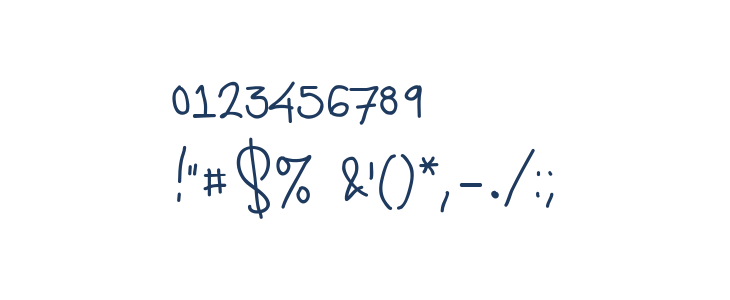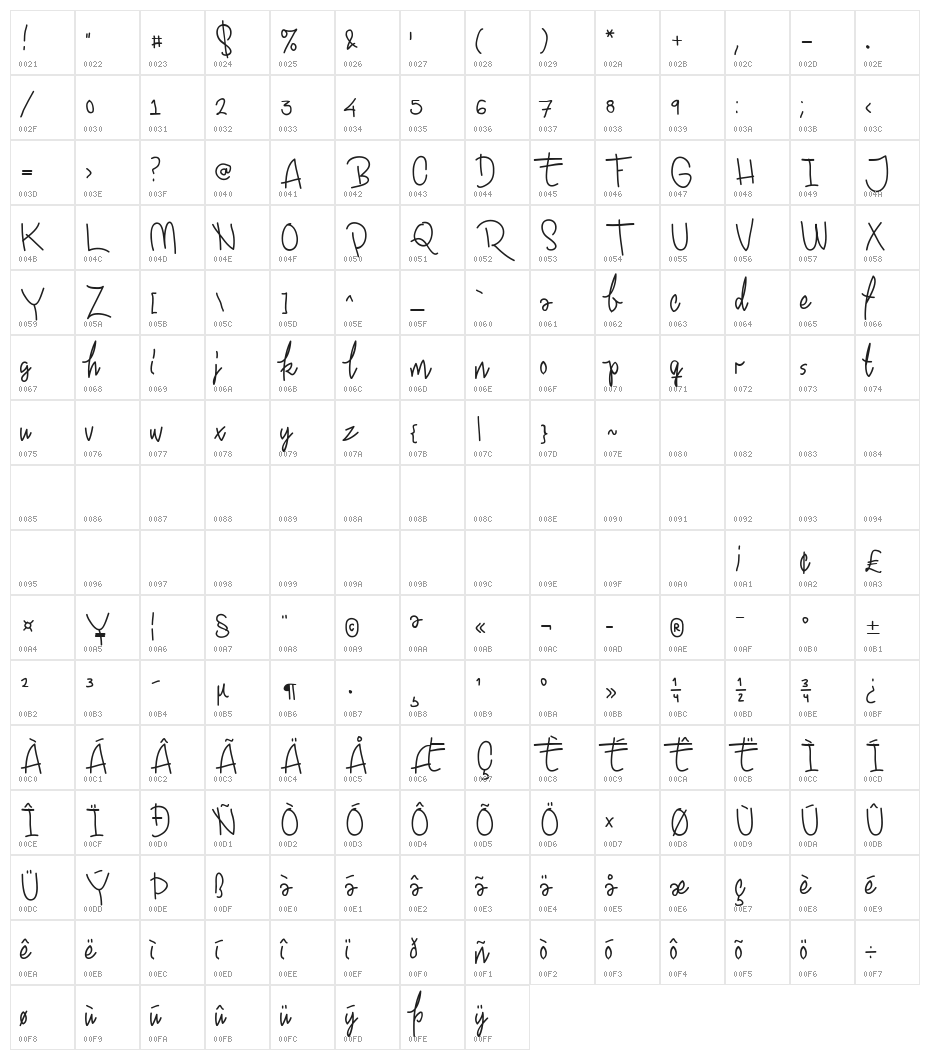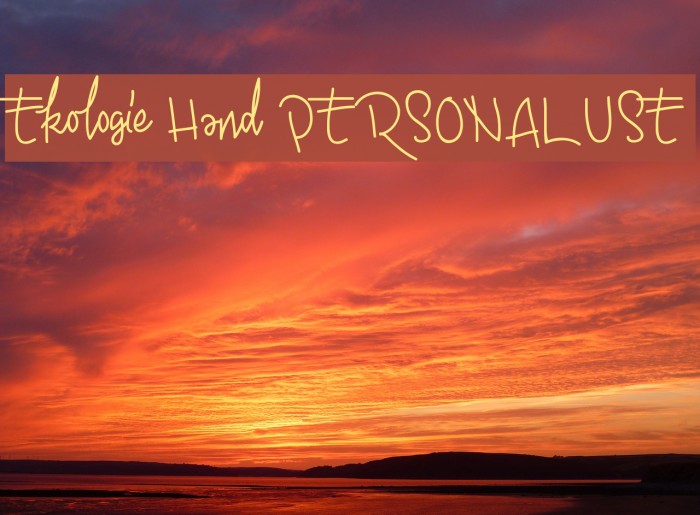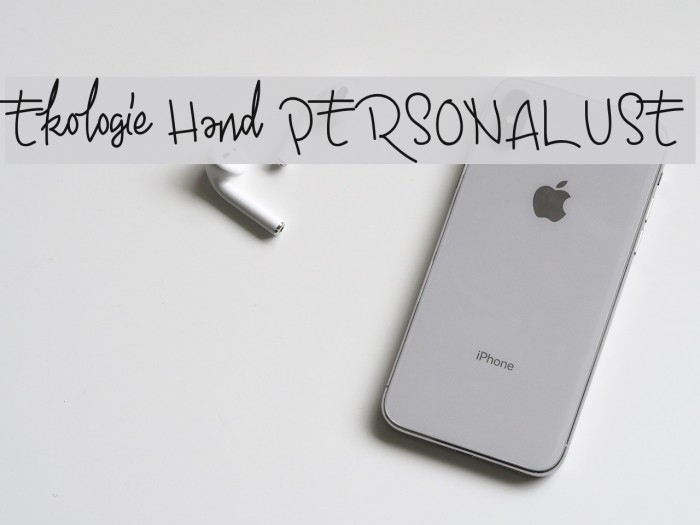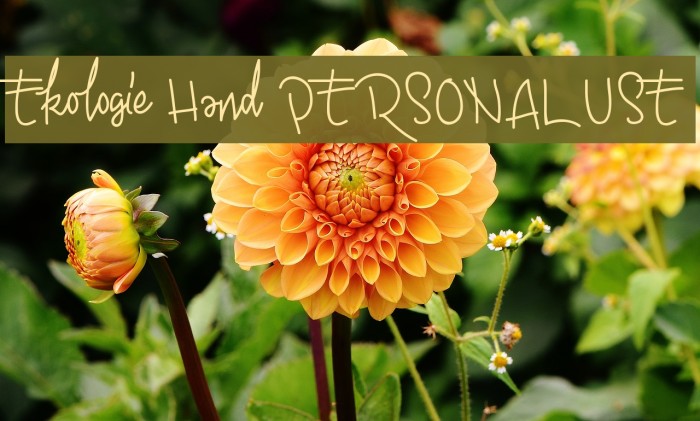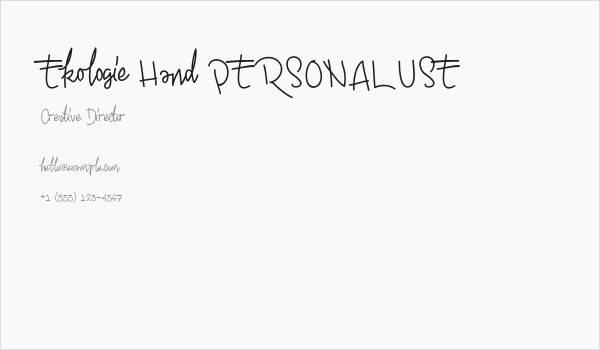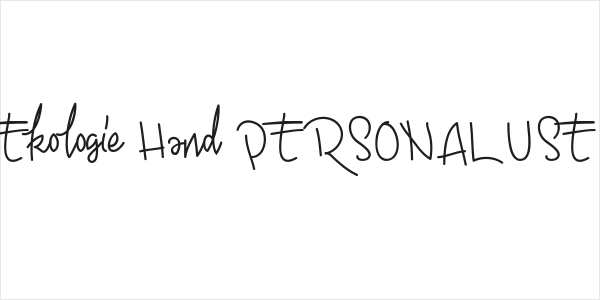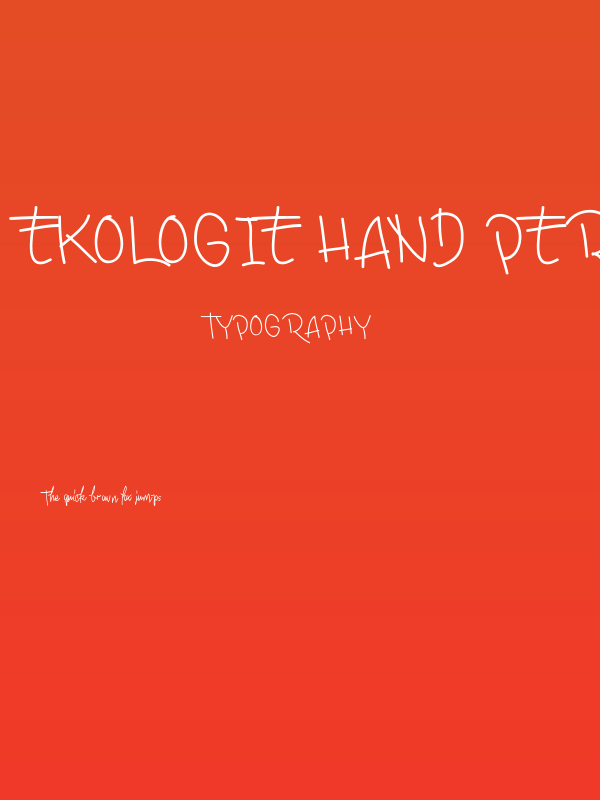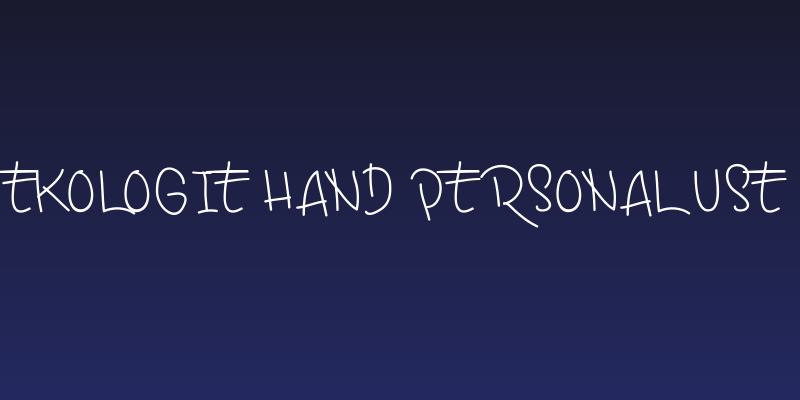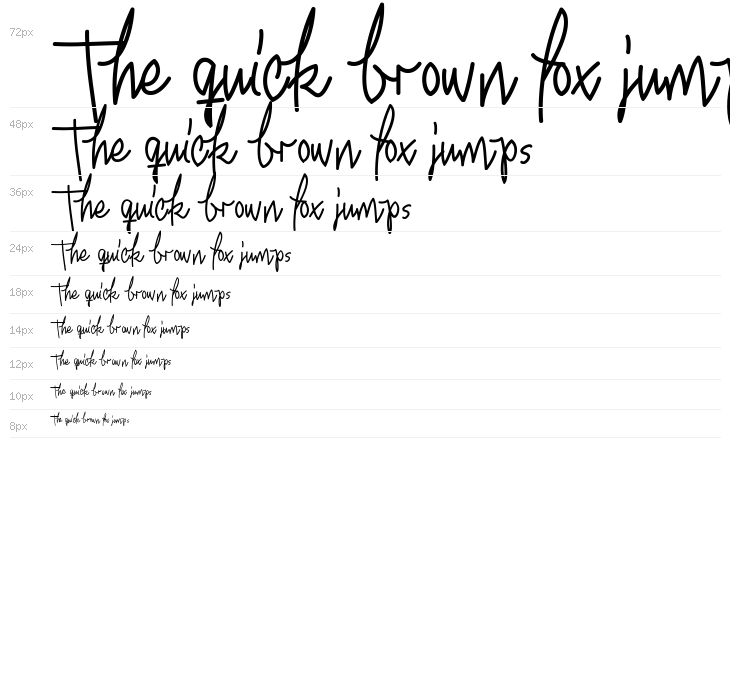
Ekologie Hand PERSONAL USE Font
Ekologie Hand PERSONAL USE Description
This font features a playful and organic handwritten style, characterized by its fluid and slightly irregular strokes. The uppercase letters are tall and narrow, with a whimsical touch that adds a sense of movement and energy. The lowercase letters maintain a consistent flow, with some letters featuring loops and curls that enhance the handwritten feel. The numbers are clear and legible, matching the overall style of the alphabet. Special characters are creatively designed, maintaining the font's playful aesthetic. This font exudes a casual and friendly vibe, making it suitable for projects that require a personal touch.